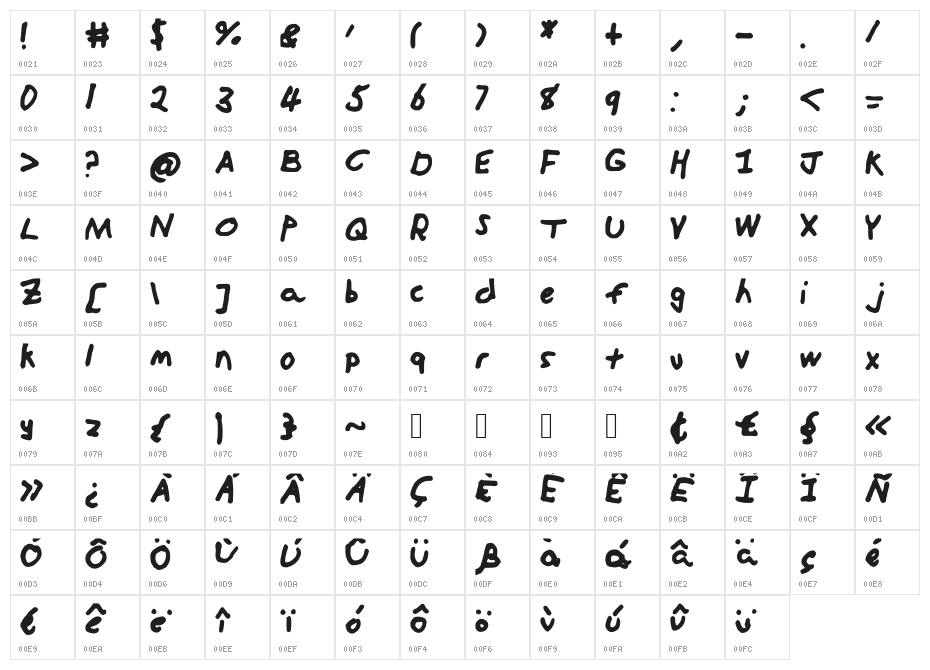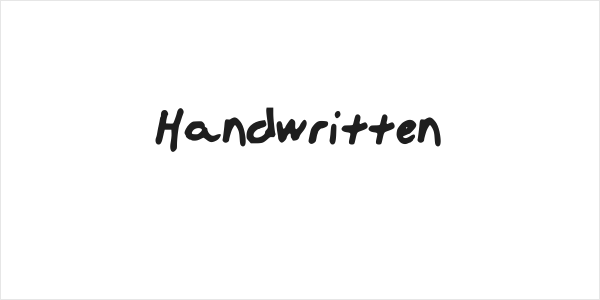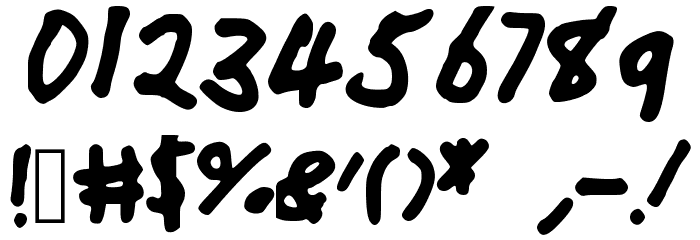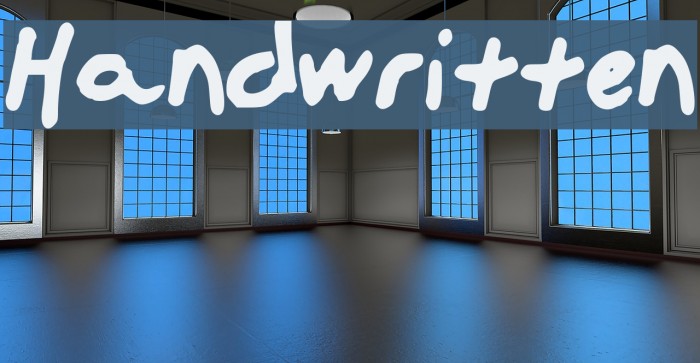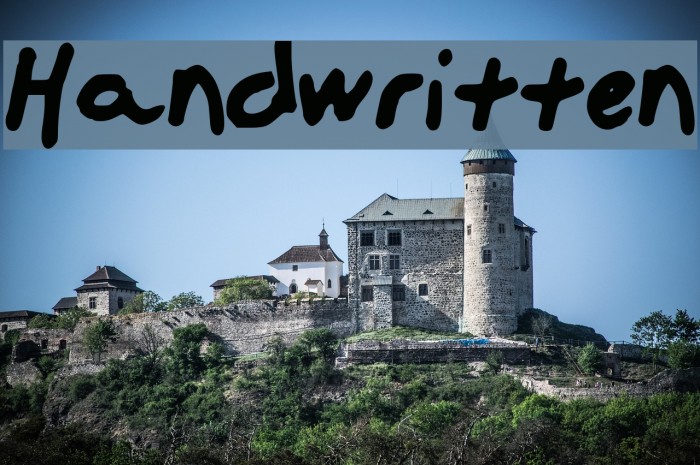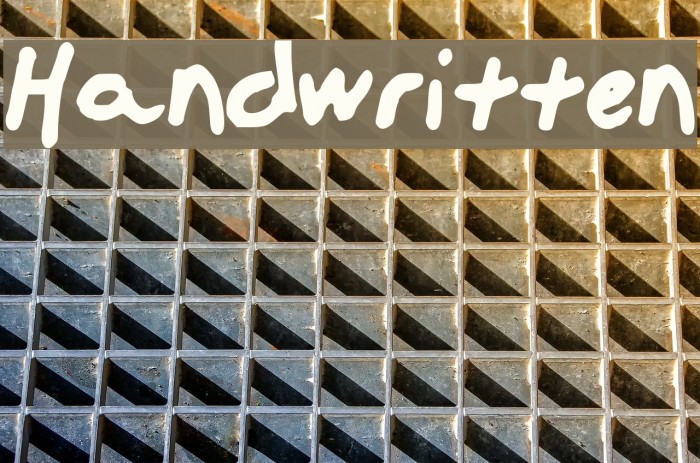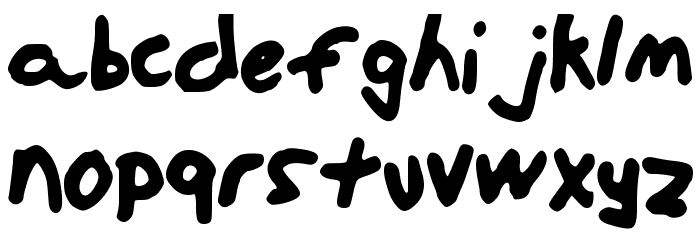
Handwritten Font
Handwritten Description
This font exudes a playful and casual handwritten style, characterized by its bold and slightly irregular strokes that mimic the natural flow of handwriting. The letters are rounded and somewhat uneven, giving it a friendly and approachable appearance. The uppercase and lowercase letters maintain a consistent style, with a noticeable emphasis on curves and loops. Numbers and special characters follow the same design ethos, ensuring a cohesive look across all elements. This font is ideal for projects that require a personal touch, such as greeting cards, invitations, or informal branding.
| Use Case | Headlines, Logos, Informal text |
| Proposed Projects | Greeting cards, invitations, informal branding, children's books, personal blogs. |